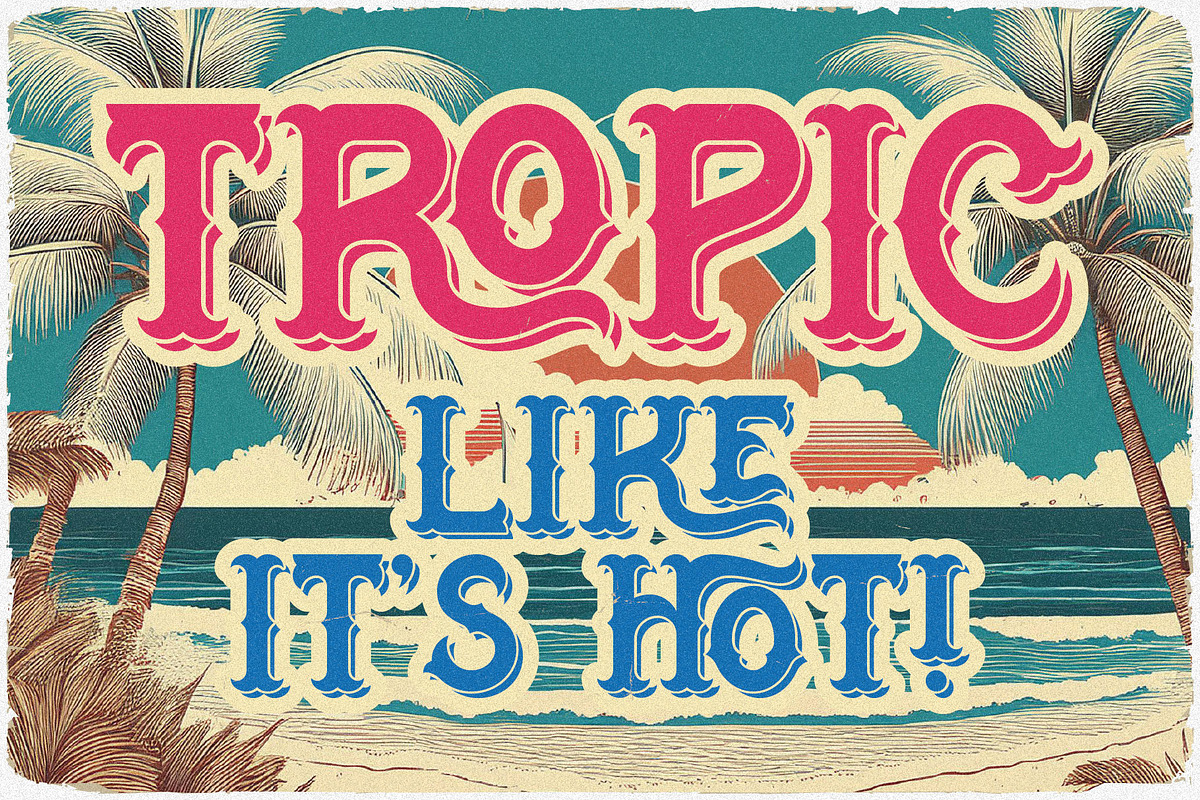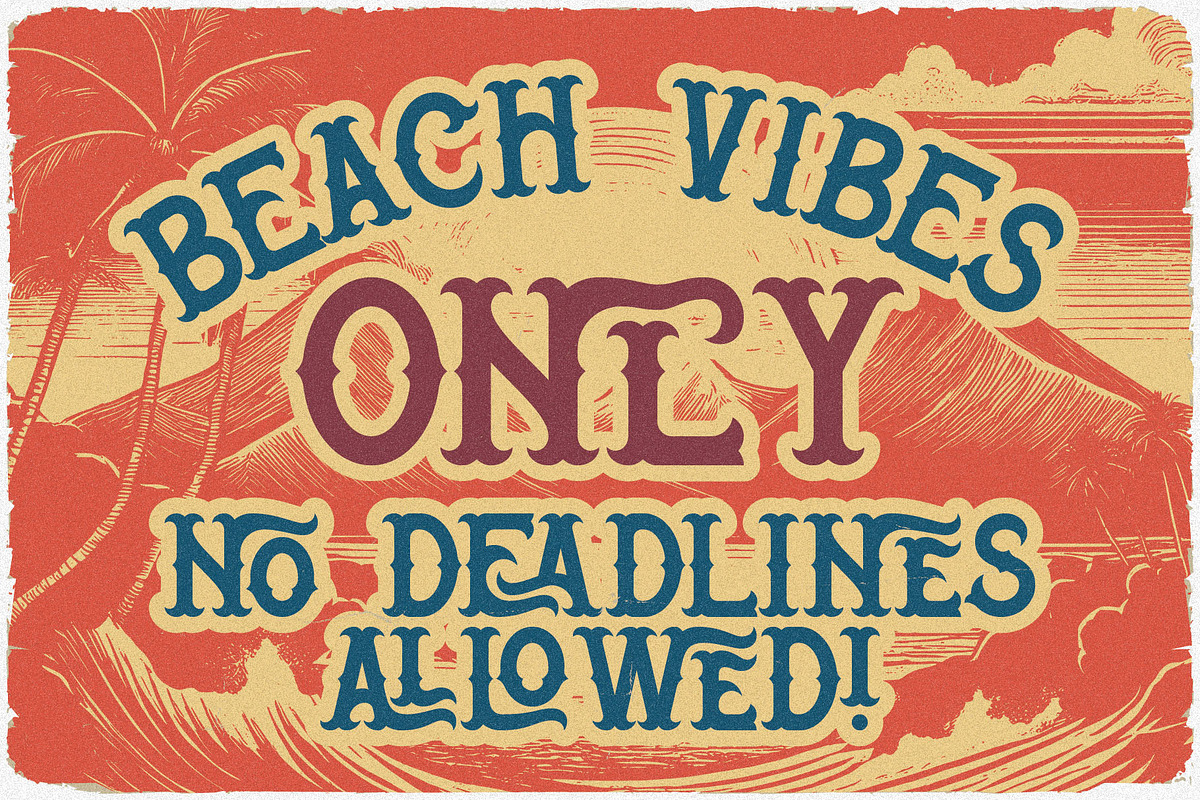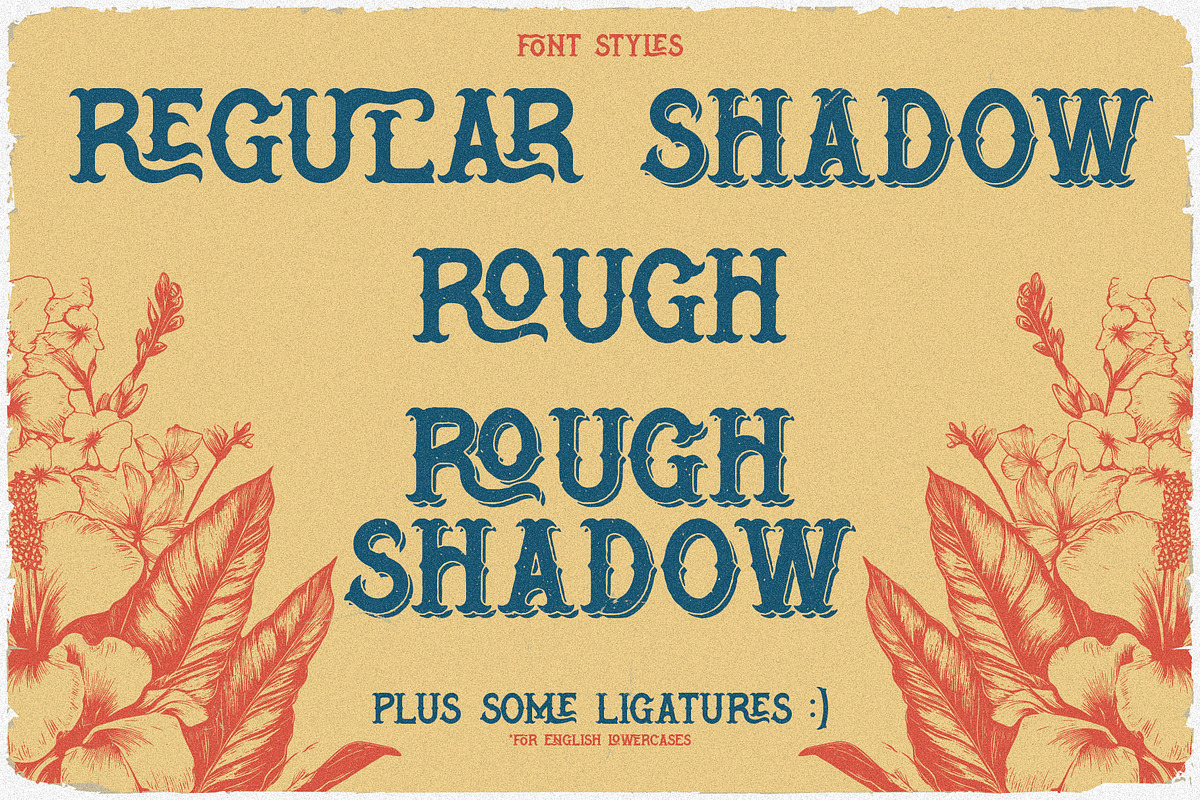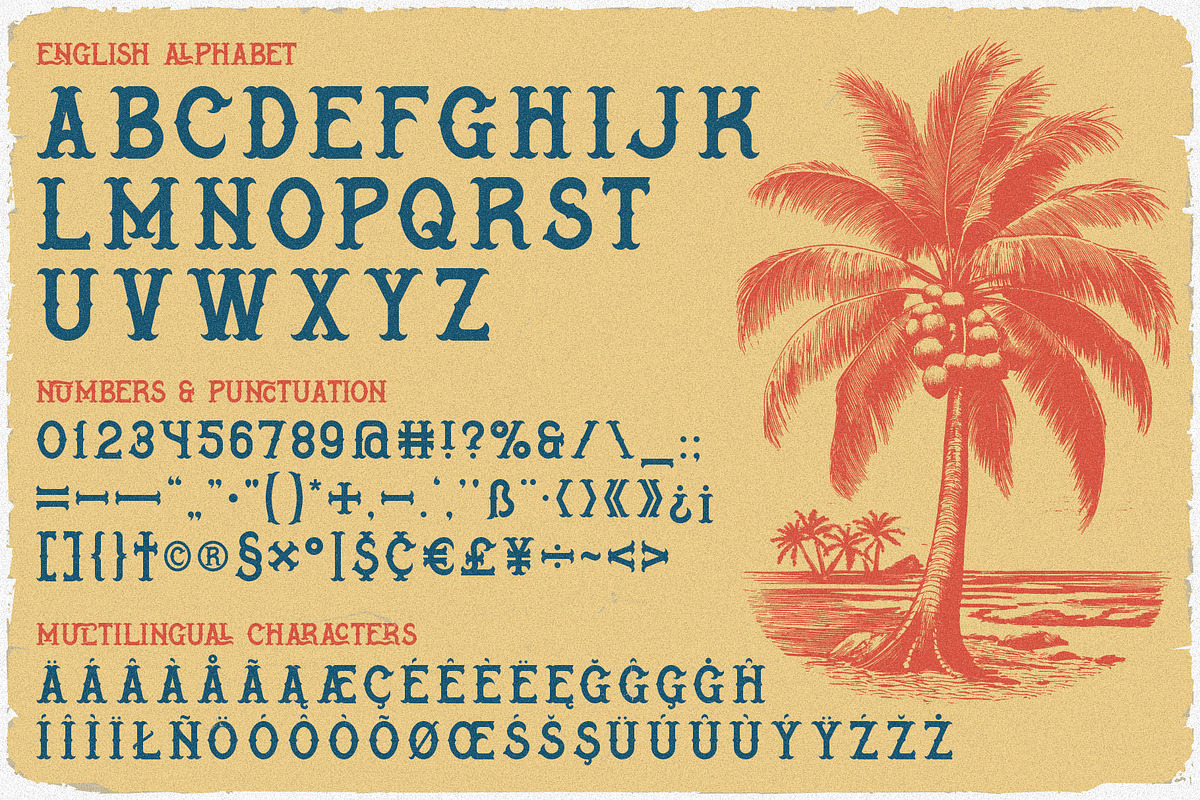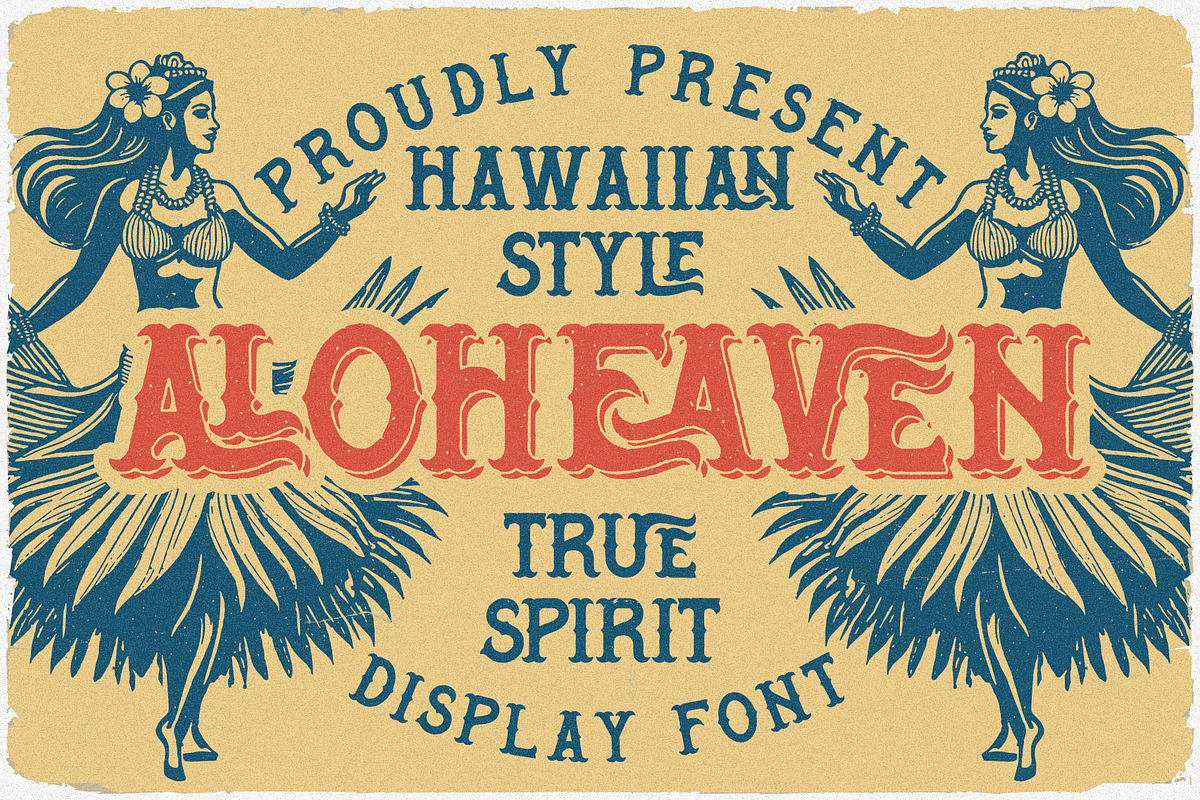
Aloheaven Vintage Label Font
Unique, classic, bold, elegant, retro, vintage, western & Hawaiian style display serif font. Comes with multilingual support & lot of ligatures + 4 font versions - great for your new logo, monogram or branding project.
- 4 font versions - regular & rough + 2 shadow fonts
- Multilingual support & lot of ligatures